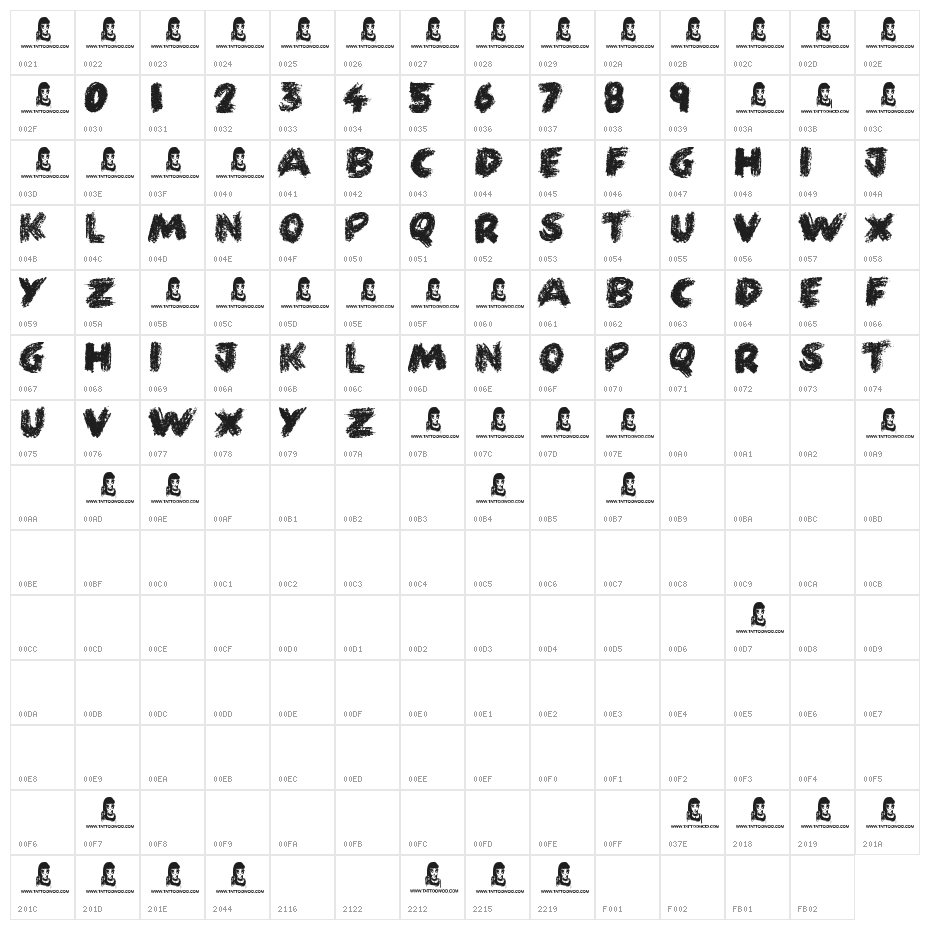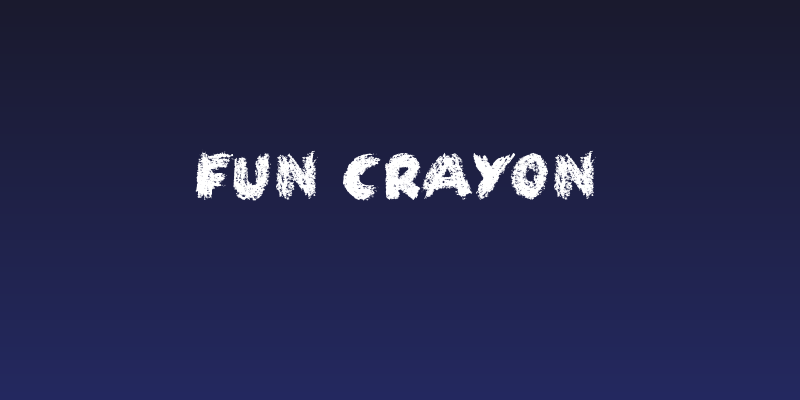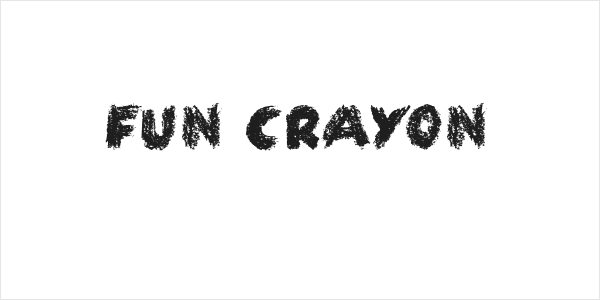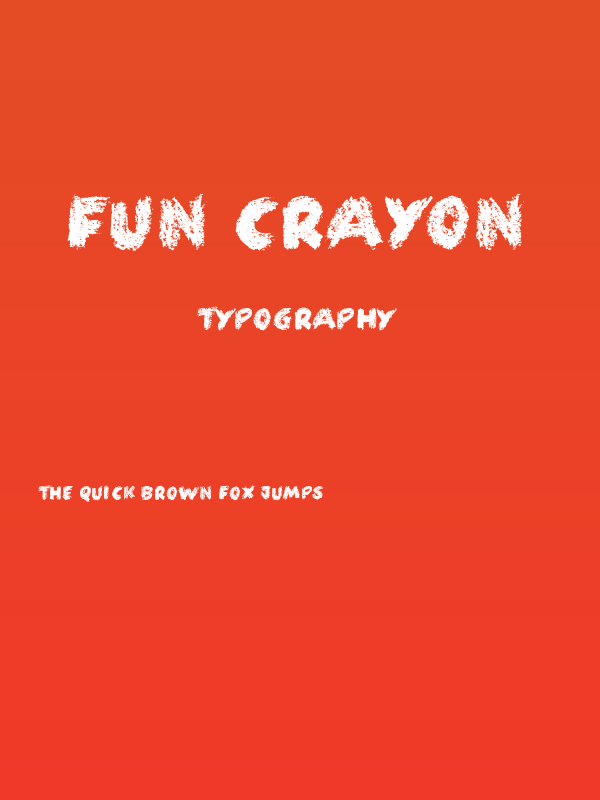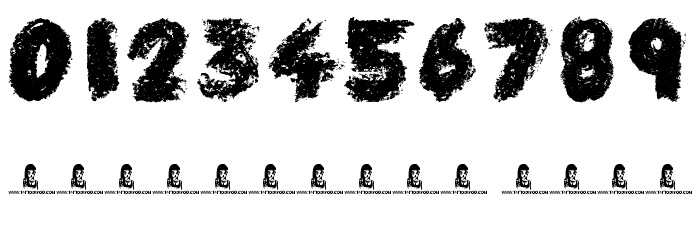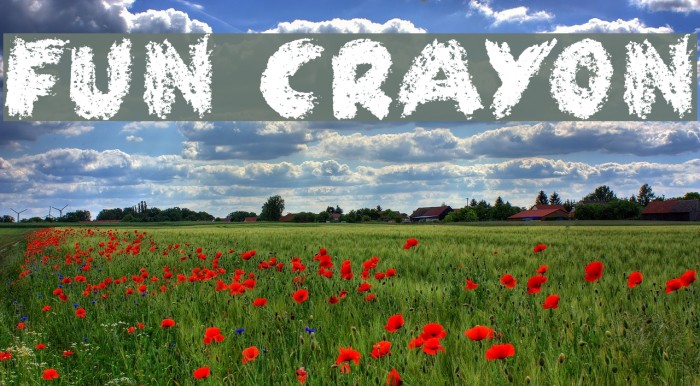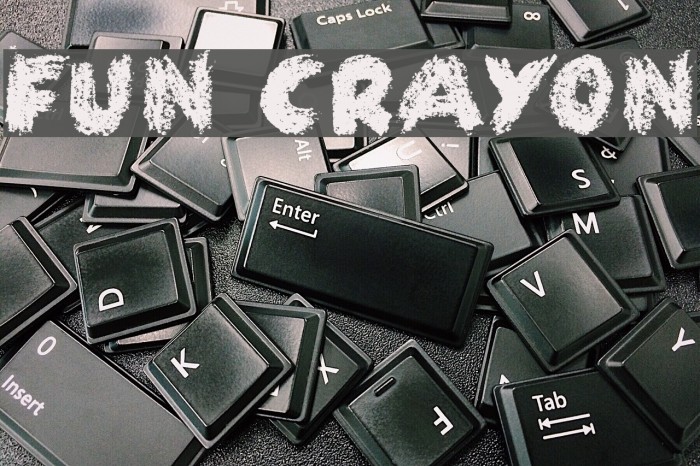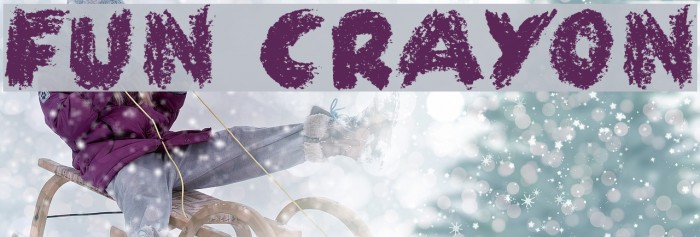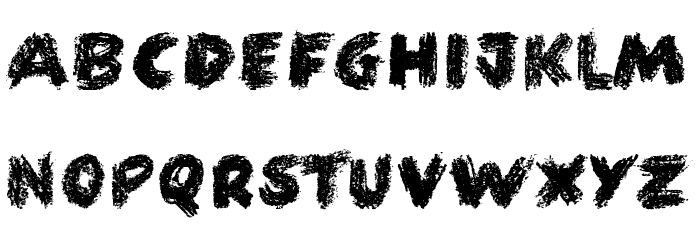
Fun Crayon Font
Fun Crayon Description
This playful and bold font features a crayon-like texture that gives it a hand-drawn, artistic feel. The characters are thick and uneven, with a rough, textured appearance that mimics the effect of drawing with a crayon on paper. The uppercase and lowercase letters maintain a consistent style, with rounded edges and a slightly irregular form that adds to the casual, fun aesthetic. The numbers and special characters follow the same design, ensuring a cohesive look across all elements. This font is perfect for projects that require a touch of creativity and informality.
| Overall Style | Playful, Artistic |
| Use Case | Headlines, Posters, Creative Projects |
| Proposed Projects | Ideal for children's book covers, playful posters, art projects, and educational materials. |